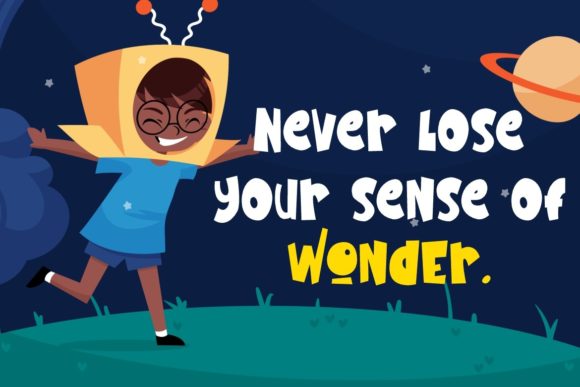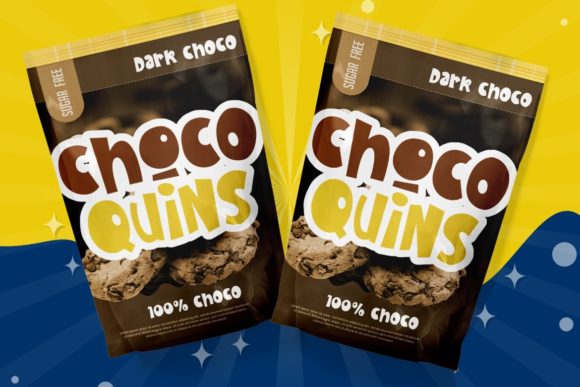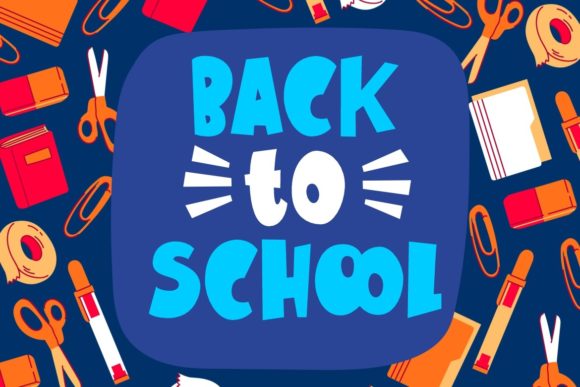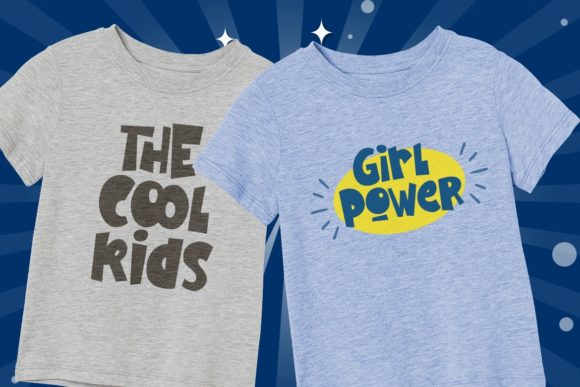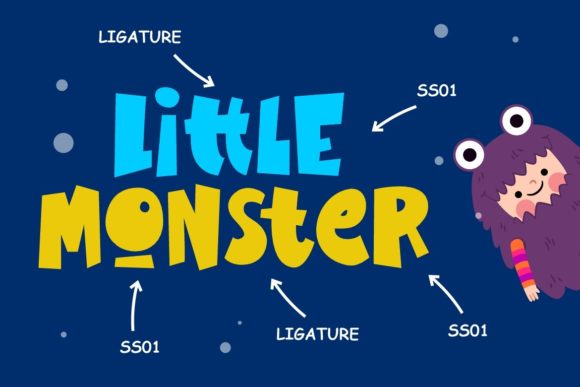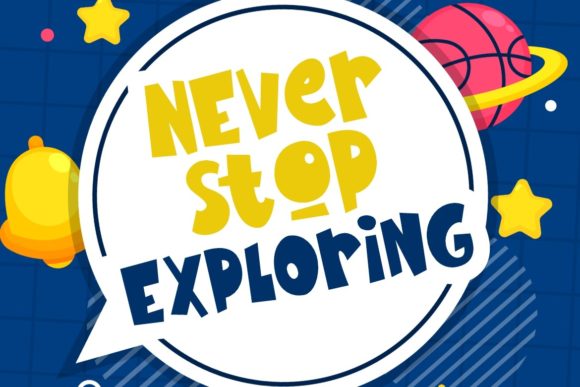
Doodleland Font: Bringing Fun and Whimsy to Your Designs
Are you looking for a font that can add a touch of playfulness and excitement to your designs? Look no further than Doodleland Font! This fun display font is perfect for kindergarten and children’s events, and is sure to make your designs come alive. In this article, we’ll take a closer look at Doodleland Font, its features, and how you can use it to create engaging and creative designs.
What is Doodleland Font?
Doodleland Font is a chunky lettered font that is designed to bring a sense of fun and whimsy to your designs. Its playful and carefree style makes it perfect for use in children’s books, educational materials, and event designs. Whether you’re creating a flyer for a kindergarten event or designing a logo for a children’s brand, Doodleland Font is sure to make your design stand out.
Features of Doodleland Font
So, what makes Doodleland Font so special? Here are just a few of its key features:
- PUA Encoded: Doodleland Font is PUA (Private Use Area) encoded, which means that you can access all of the glyphs and swashes with ease. This makes it easy to customize your designs and add your own personal touch.
- Chunky Lettering: The chunky lettering of Doodleland Font gives it a playful and bold feel that’s perfect for creating eye-catching designs.
- Fun and Whimsical: Doodleland Font has a fun and whimsical style that’s sure to delight children and adults alike.
Uses for Doodleland Font
So, how can you use Doodleland Font in your designs? Here are just a few ideas to get you started:
- Kindergarten and Children’s Events: Doodleland Font is perfect for creating flyers, posters, and other promotional materials for kindergarten and children’s events.
- Children’s Books and Educational Materials: The playful and engaging style of Doodleland Font makes it perfect for use in children’s books and educational materials.
- Logo Design: Doodleland Font can be used to create fun and playful logos for children’s brands and businesses.
- Party Decorations: Use Doodleland Font to create custom party decorations, such as banners and garlands, for kids’ parties.
Tips for Using Doodleland Font
Here are a few tips for getting the most out of Doodleland Font:
- Experiment with Colors: Doodleland Font looks great in bright, bold colors. Experiment with different color combinations to find the one that works best for your design.
- Add Swashes and Glyphs: Use the PUA encoded glyphs and swashes to add extra flair to your designs.
- Mix and Match Fonts: Try pairing Doodleland Font with other fonts to create a unique and interesting look.
Doodleland Font is a fun and playful display font that’s perfect for kindergarten and children’s events. Its chunky lettering and whimsical style make it sure to delight children and adults alike. With its PUA encoding and ease of use, Doodleland Font is a great addition to any designer’s toolkit. So why not give it a try and see how it can bring your designs to life?